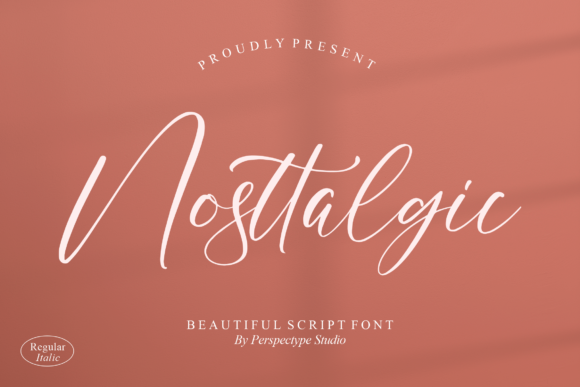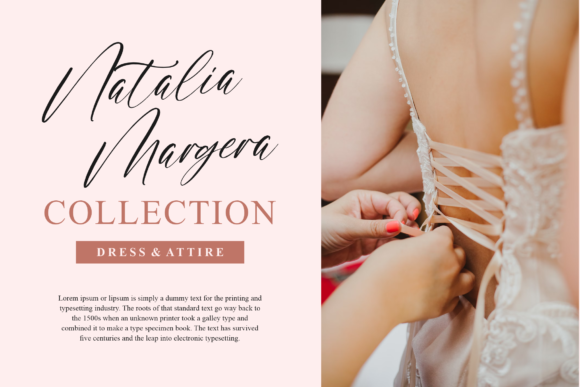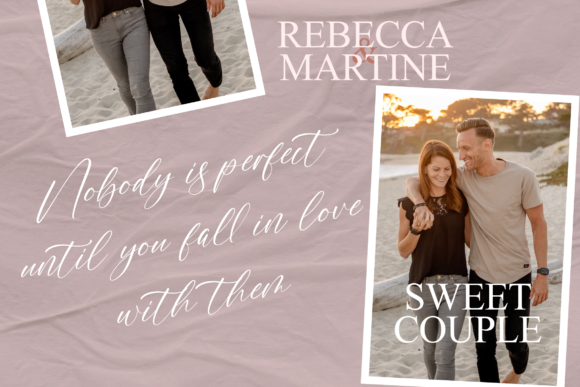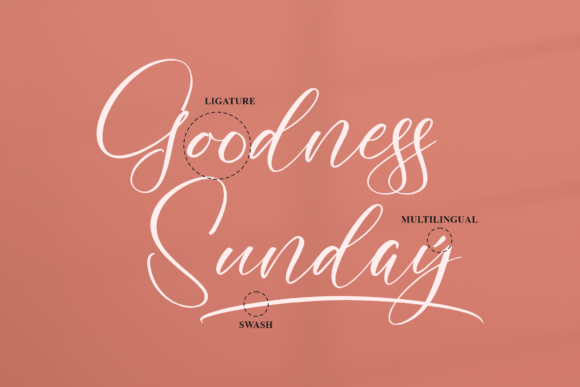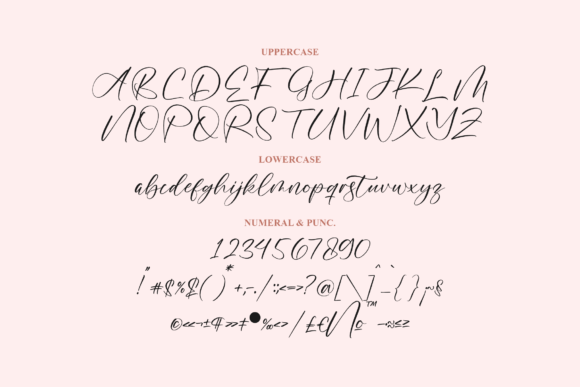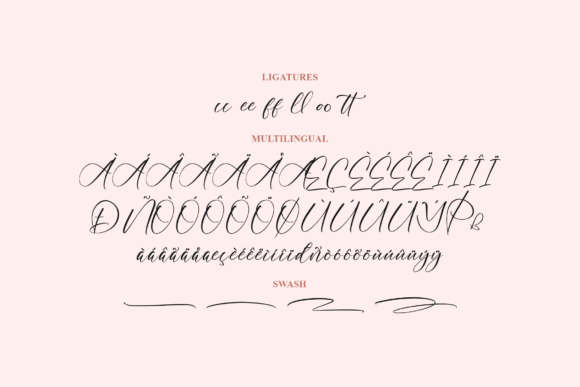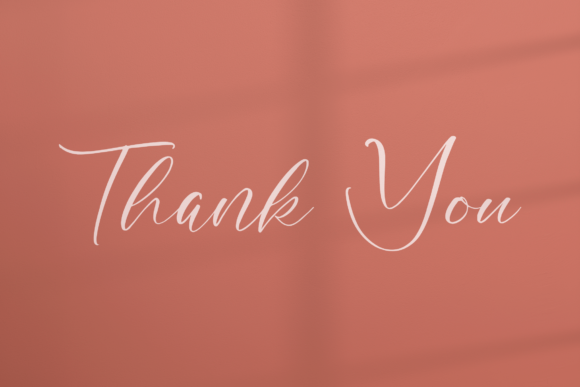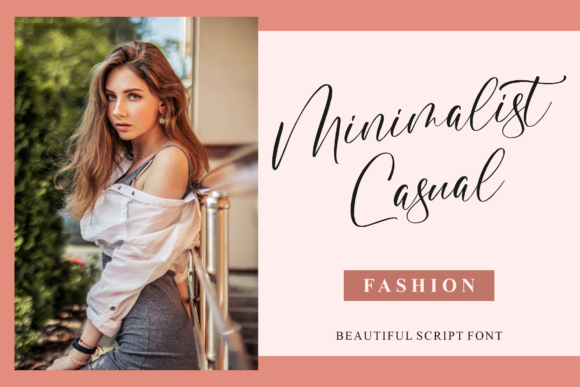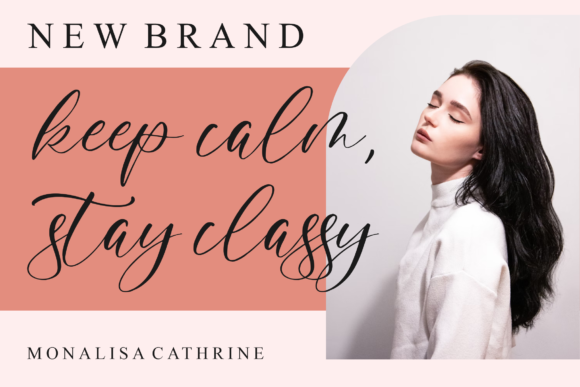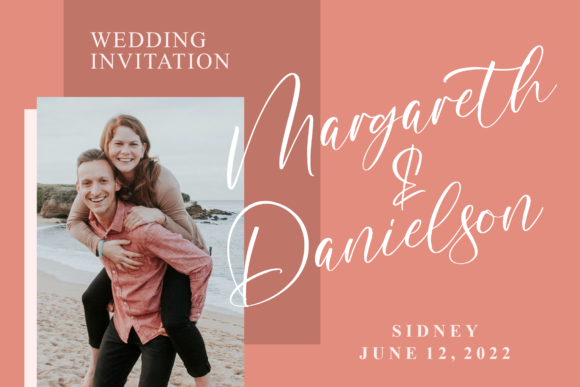
Nosttalgic Font
About Nosttalgic Font
Introducing Nosttalgic, a sweet and cursive handwritten script font that brings a touch of joy and romance to your projects. This font is perfectly crafted to add a delightful and romantic essence, making it an ideal choice for various applications such as branding, logos, wedding materials, greeting cards, fashion designs, lookbooks, marketing promotions, and any project where you want to achieve a blend of fancy elegance with a casual touch.
The charm of Nosttalgic lies in its sweet and cursive design, which imparts a joyful and romantic feel to your text. The handwritten script adds a personal touch, making it versatile for a wide range of design purposes. Whether you’re creating a brand identity, wedding invitations, or marketing materials, Nosttalgic effortlessly elevates the overall aesthetic with its casual yet elegant appeal.
Perfectly suited for branding initiatives, Nosttalgic becomes a visual representation of your brand’s style and personality. Its versatility allows it to adapt seamlessly to diverse design needs, offering a font choice that balances sophistication with a touch of informality.
Whether you’re working on a fashion lookbook or designing promotional materials, Nosttalgic is designed to bring a joyful and romantic touch to your projects. It stands out as a font that captures the essence of elegance while maintaining a casual and approachable demeanor.
In summary, Nosttalgic is not just a font; it’s a sweet and cursive handwritten script that transforms your designs into expressions of joy and romance. Let it be the perfect companion for your creative endeavors, adding a touch of fancy elegance to your branding, wedding materials, and beyond.